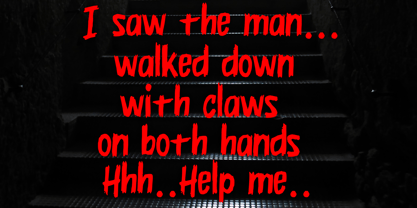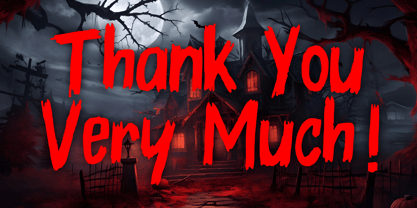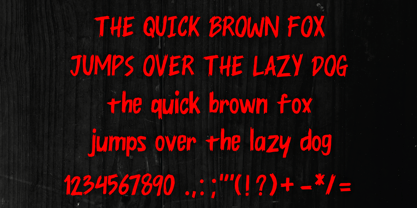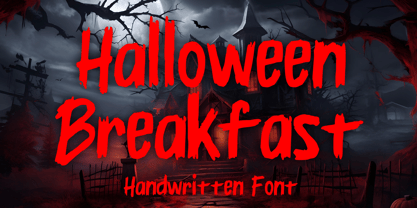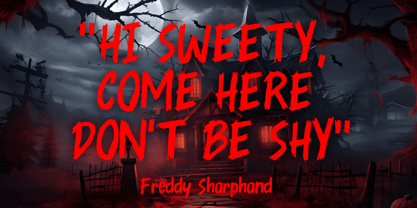
Halloween Breakfast
The Halloween Breakfast Font Family was designed by Gabriel Valentinus and published by Mvmet. Halloween Breakfast contains 1 styles. More about this family
Halloween Breakfast is a cool horror font inspired by vintage horror movies, horror comics, and Metal music. It will be perfect for your horror and Halloween themed needs! You can use it for anything ranging from merchandise like t-shirts and clothing, for your scary book designs, Halloween party needs, greeting cards, stickers, posters, banners, or anything that needs a horror touch.